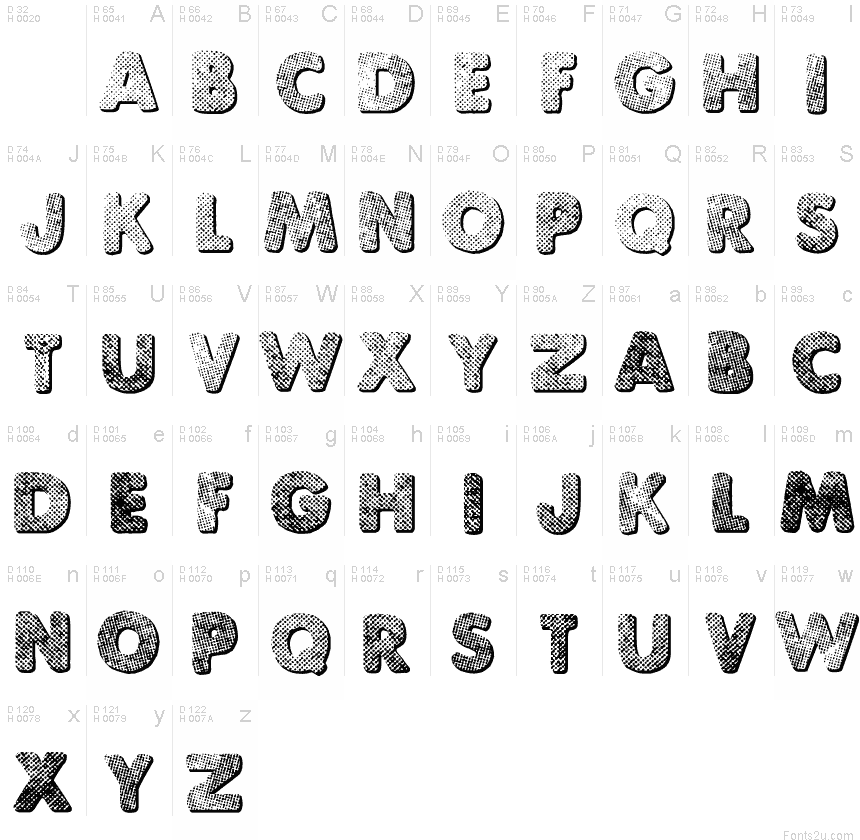
Punk Dots by Imagex is a free eroded display font with broad, rounded capitals, uneven dark edges, and a rough, rowdy photocopied finish. Each oversized letter carries its own mix of dots and dense hatching.
It can turn a poster title into part of the artwork, especially for punk shows, skate merchandise, and independent magazine covers. The clashing halftone screens, scratchy marks, and scuffed shadows also suit record packaging, where the lettering can echo distressed print, collage, and hand-inked graphics.